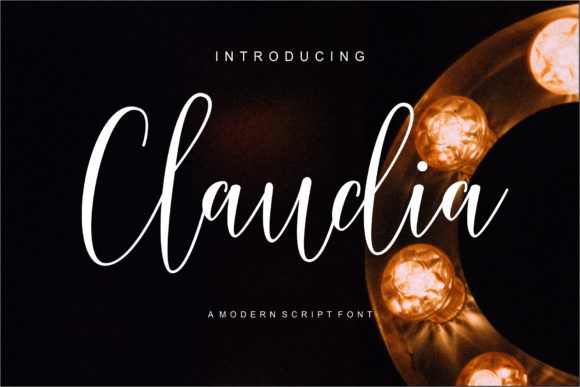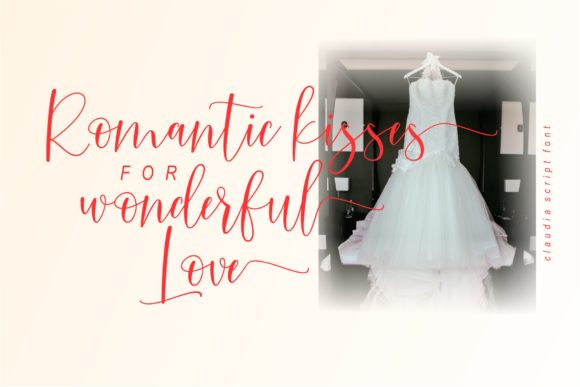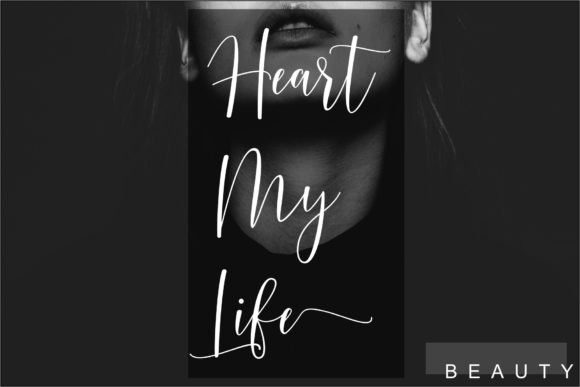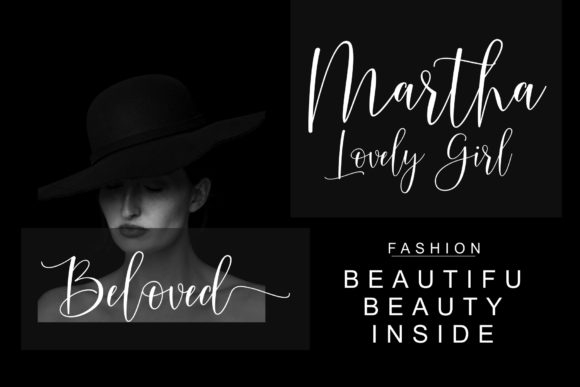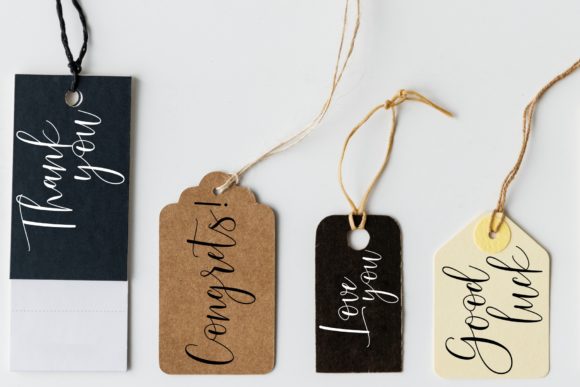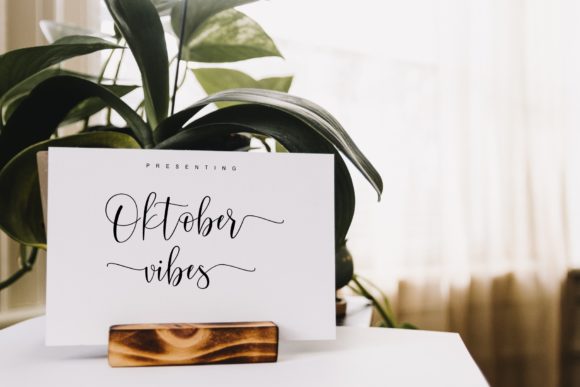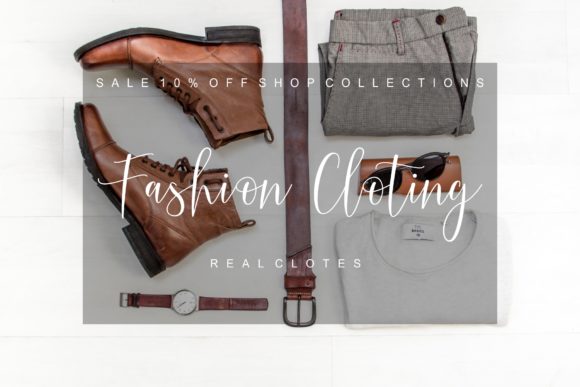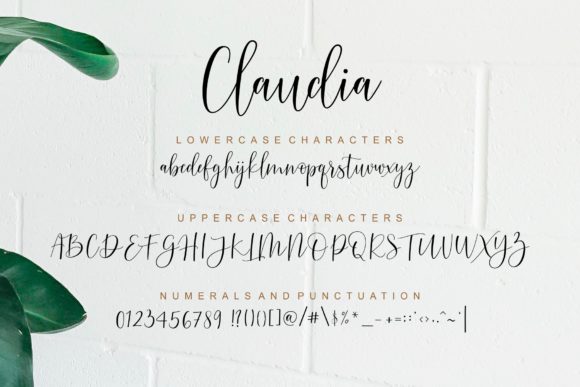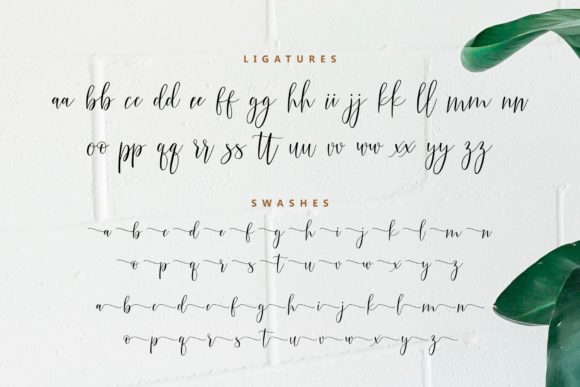
Claudia Font
About Claudia Font
The Claudia is an attractive script font. It has thin and elegant letters which will add a luxurious feel to your designs.